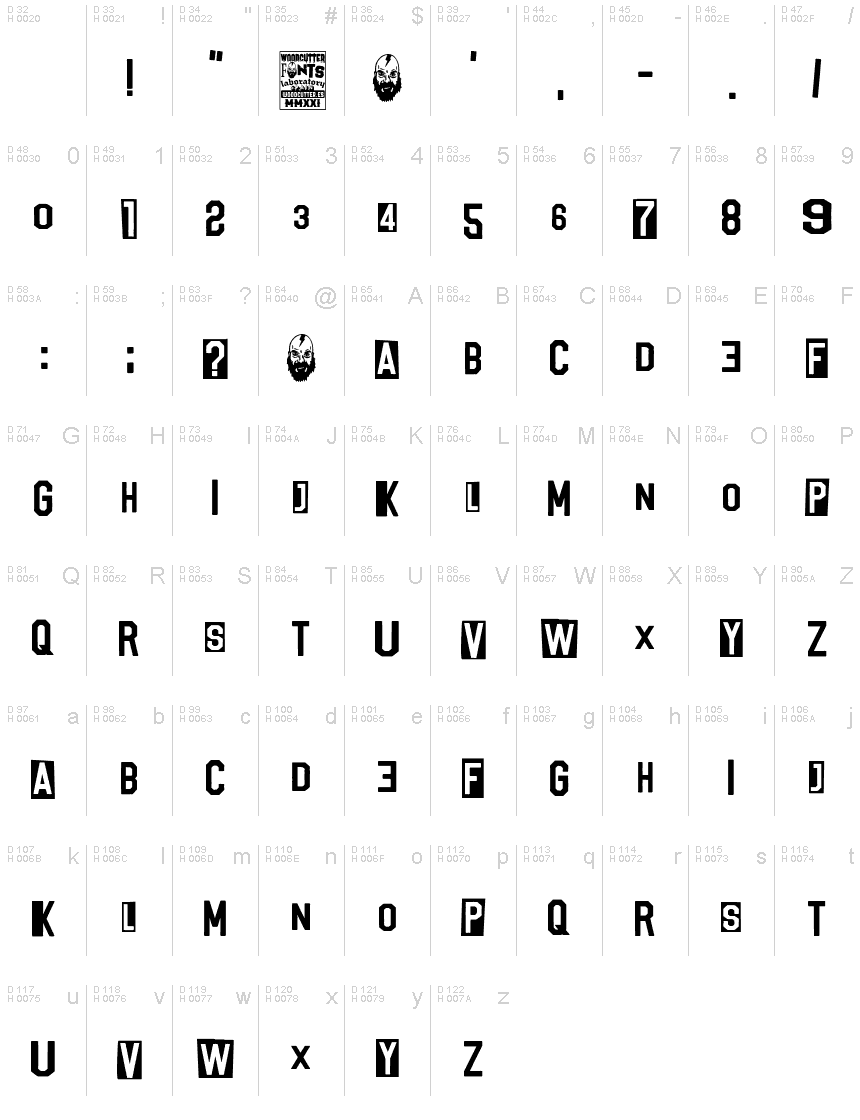
Punk University
Punk University, crafted by the talented Woodcutter, is a dynamic display font that exudes rebellious energy. With its condensed width and semi-bold style, this font is perfect for projects seeking an edgy and bold aesthetic.
Whether it's album covers for punk rock bands, fashion magazines aiming to make a statement, or posters promoting alternative art exhibits, Punk University will inject your designs with an unmistakable punk attitude.
Embrace the unconventional and unleash your creativity with this unconventional font that screams individuality and nonconformity.
Punk University.